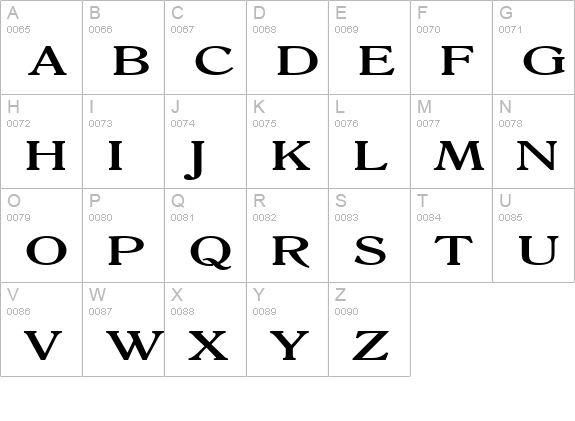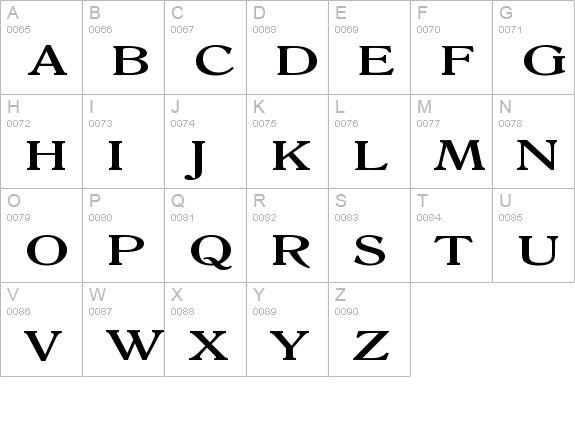
Roomy Extended Bold is a strong, high-contrast, extended-width variant in the Roomy typeface family \xE2\x80\x94 well suited to headlines, attention-grabbing titles, and strong calls-to-action.
Roomy Extended Bold font is a modern and stylish typeface that exudes confidence and boldness. With its spacious letterforms and extended design, this font commands attention and makes a strong statement in any design project. The thick strokes and clean lines add a sense of power and authority to any text, while still maintaining a sleek and contemporary look. What sets Roomy Extended Bold font apart is that it is completely free to download at FontsMarket.com. This means you can easily access this high-quality typeface for all your creative needs without any cost involved. Whether you're working on branding, advertising, posters, or any other design project, Roomy Extended Bold font is a versatile choice that will help your text stand out and make a lasting impression. Download it today and elevate your designs with this striking and impactful font.